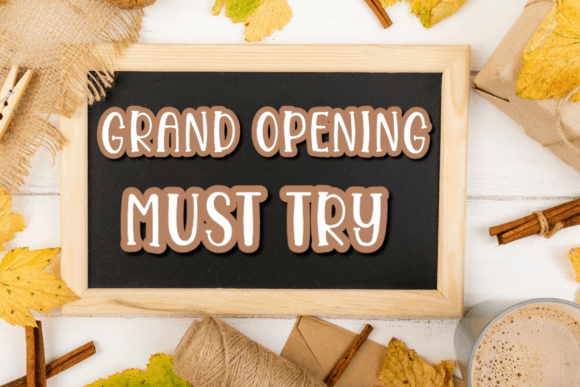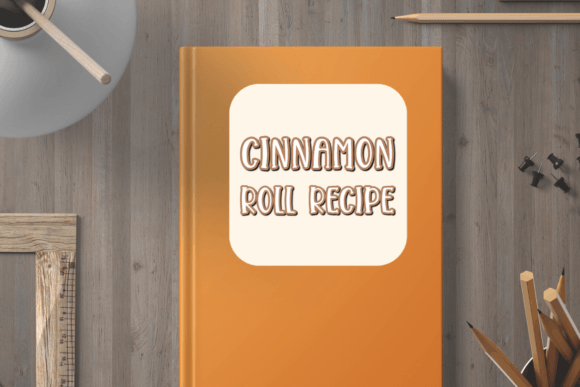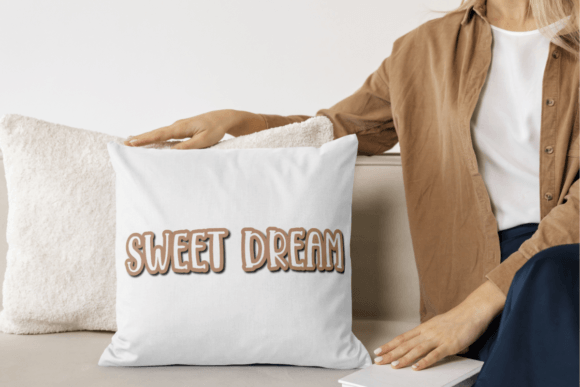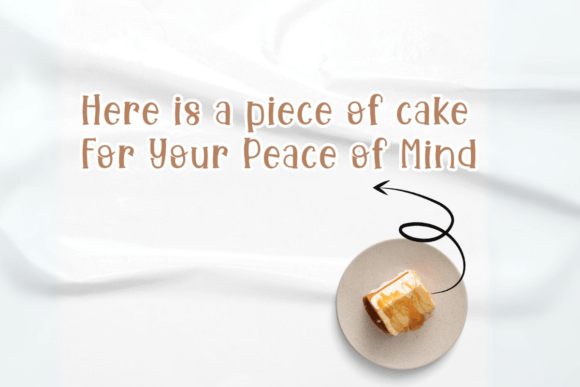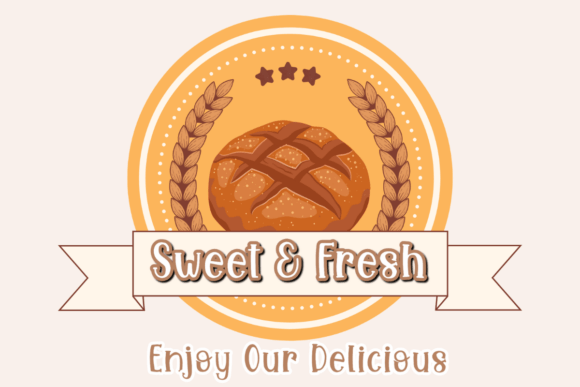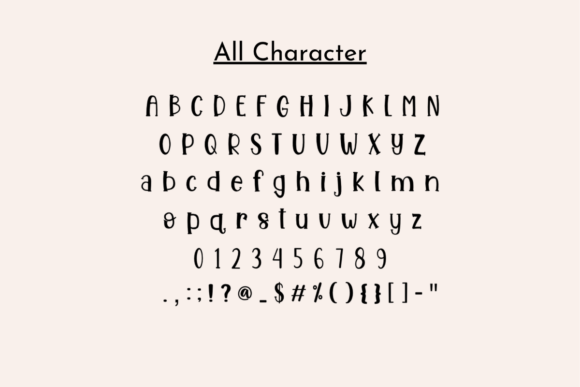
Introduction to Cinnamon Cake Font
Cinnamon Cake is a cute and bold serif font that delivers fun casual handwriting and a bit quirky.
It would be an amazing addition to your friendly projects and designs .
Cinnamon Cake Font offers exceptional quality and versatility, making it a valuable addition to your design toolkit. Whether you’re creating for personal projects or commercial use, Cinnamon Cake Font delivers professional results.